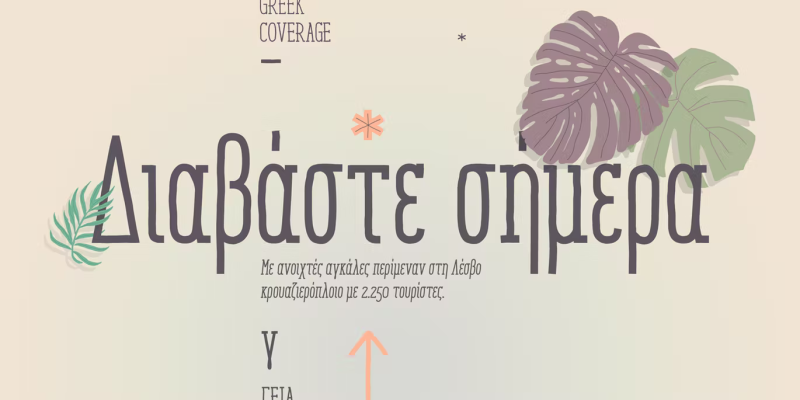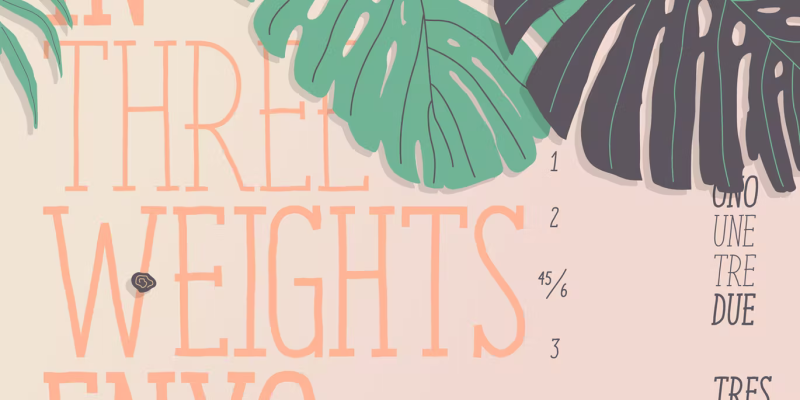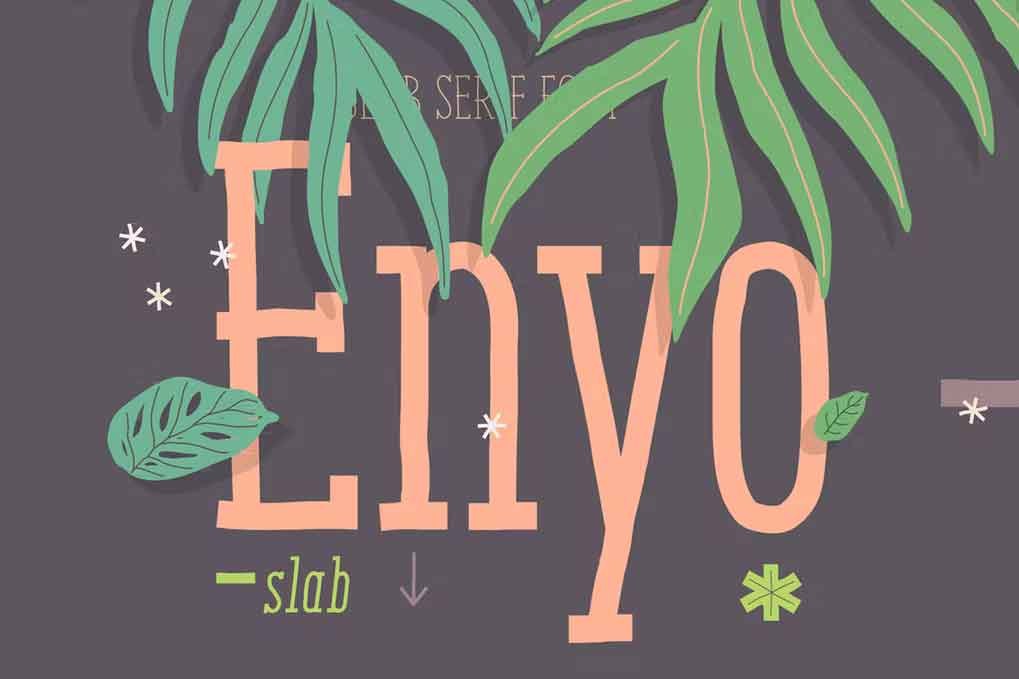
Enyo Slab Font
Enyo Slab is a decorative, display, slab handwritten font. This font will provide an informal look to your work! It can be used for small ammount of text, and specially for display usage because of its glyph quality.
Enyo offers OpenType features, including **ligatures, alternates, smallcaps, scientific superior/inferior figures, oldstyle figures, fractions, slashed zero, and kerning. **
This handwritten font has a large glyph coverage, supporting at least 133 languages including English, Spanish, French, German, Italian, Portuguese, Swedish, Polish, Czech, Vietnamese, Russian, among many others. Enyo Slab has also available the Cyrillic and Greek alphabets.
Enyo Slab Font is a Script And Handwritten font that brings a professional and versatile look to your projects. Enyo Slab is a decorative, display, slab handwritten font.